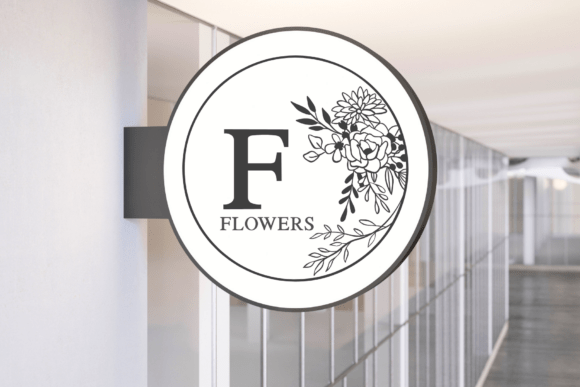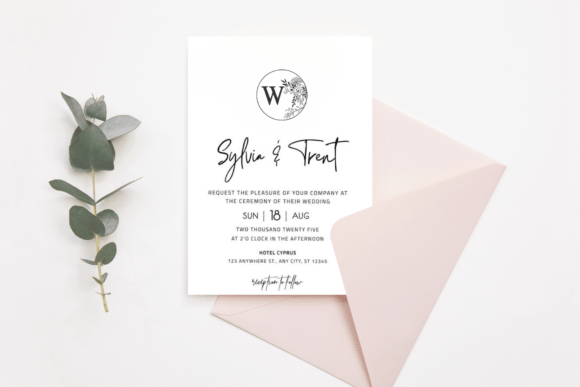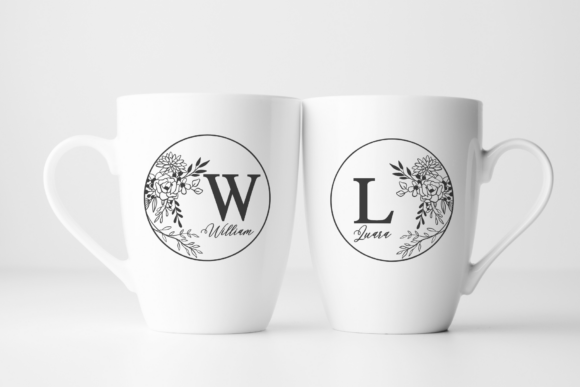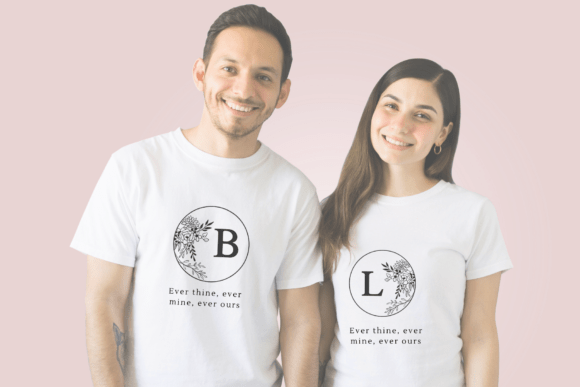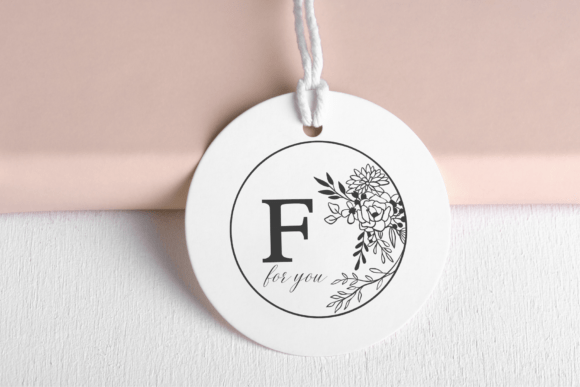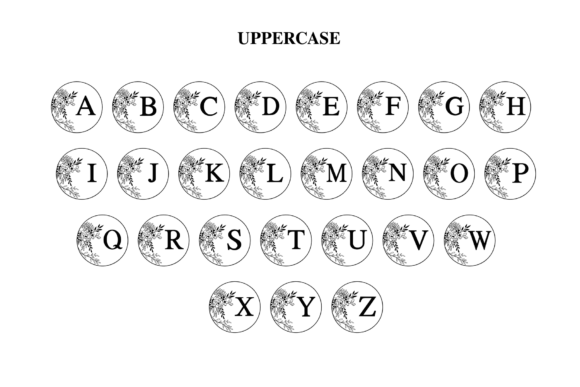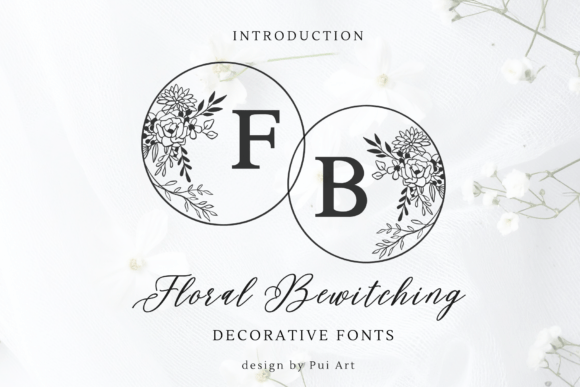
The Floral Bewitching Font: Elevate Your Designs with Elegance and Sophistication
In the world of typography, few fonts capture the essence of luxury and romance as effortlessly as the Floral Bewitching Font. This exquisite typeface is a masterful blend of floral artistry, sophisticated calligraphy, and elegant design, making it the perfect choice for designers and crafters seeking to add a touch of whimsy and refinement to their projects.
Inspired by Floral Artistry and Luxury Design
The Floral Bewitching Font draws inspiration from the intricate details and ornate patterns found in floral artistry and luxury design. Each letter is carefully crafted to evoke the delicate curves and lines of botanical illustrations, resulting in a font that exudes elegance and sophistication. The font’s unique blend of classic and modern elements makes it an excellent choice for a wide range of applications, from traditional wedding invitations to modern branding and packaging.
Key Features of the Floral Bewitching Font
The Floral Bewitching Font boasts a range of features that make it an ideal choice for designers and crafters. Some of its key characteristics include:
- Delicate Botanical Details: Intricate floral patterns and motifs are woven throughout the font, adding a touch of whimsy and romance to each letter.
- Sophisticated Calligraphy: The font’s calligraphic elements are carefully crafted to evoke the elegance and refinement of luxury design.
- Graceful Monograms: The font features a range of beautiful monograms, perfect for adding a personal touch to wedding invitations, logos, and other creative projects.
Perfect for a Range of Creative Projects
The Floral Bewitching Font is an incredibly versatile typeface, suitable for a wide range of creative projects. Some of the most popular uses for this font include:
- Wedding Invitations: The font’s elegant and romantic design makes it perfect for wedding invitations, save-the-date cards, and other wedding-related stationery.
- Branding and Packaging: The font’s sophisticated and luxurious feel makes it an excellent choice for high-end branding and packaging projects.
- Logos and Icons: The font’s unique and eye-catching design makes it perfect for creating custom logos and icons.
- Greeting Cards and Stationery: The font’s elegant and refined design makes it suitable for a range of greeting cards and stationery, from thank-you cards to formal invitations.
Why Designers and Crafters Love the Floral Bewitching Font
The Floral Bewitching Font has quickly become a favorite among designers and crafters, and for good reason. Here are just a few reasons why:
- Romantic and Timeless Design: The font’s elegant and refined design makes it perfect for creating romantic and timeless pieces that will never go out of style.
- High-Quality Design: The font is carefully crafted to ensure that every letter and detail is of the highest quality.
The Floral Bewitching Font is a truly unique and exceptional typeface that is sure to elevate any design project. With its elegant and sophisticated design, delicate botanical details, and sophisticated calligraphy, this font is perfect for designers and crafters seeking to add a touch of luxury and romance to their work. Whether you’re creating wedding invitations, branding and packaging, or logos and icons, the Floral Bewitching Font is an excellent choice.